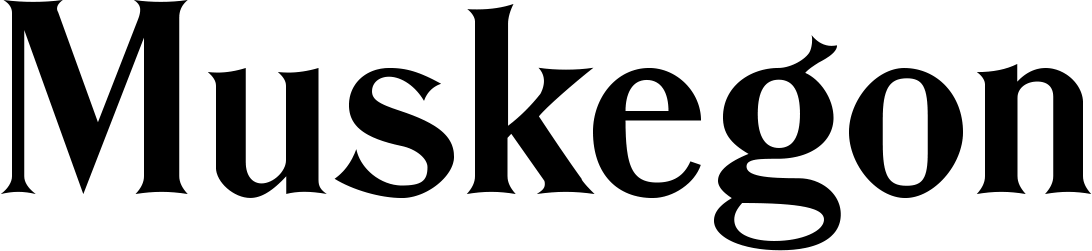
Muskegon CF Font
Muskegon CF is a serif font that has a classical design, its stylish bold characters allow you to create an established, convincing, and sophisticated typography. The attractive, professional serif edges give it a confident feel that looks excellent.
MUSKEGON CF is my revival, completely redrawn, of Woodward, a typeface I found in Specimen Book and Catalog, Inland Type Foundry (St. Louis 1897). MUSKEGON is a SemiBold serif typeface appropriate for posters, vintage-modern design, titles, drop caps, advertising and the like. Indeed, the catalog states, “For posters the printer will not be able to get a more useful letter than this…face.” And the hype continues in another place, “As there can be but one perfect…system, we caution printers to beware of…faces put on the market by the old foundries; they will be found to be a vexatious delusion.” You’ve been warned.
MUSKEGON was originally design by William A. Schraubstadter.